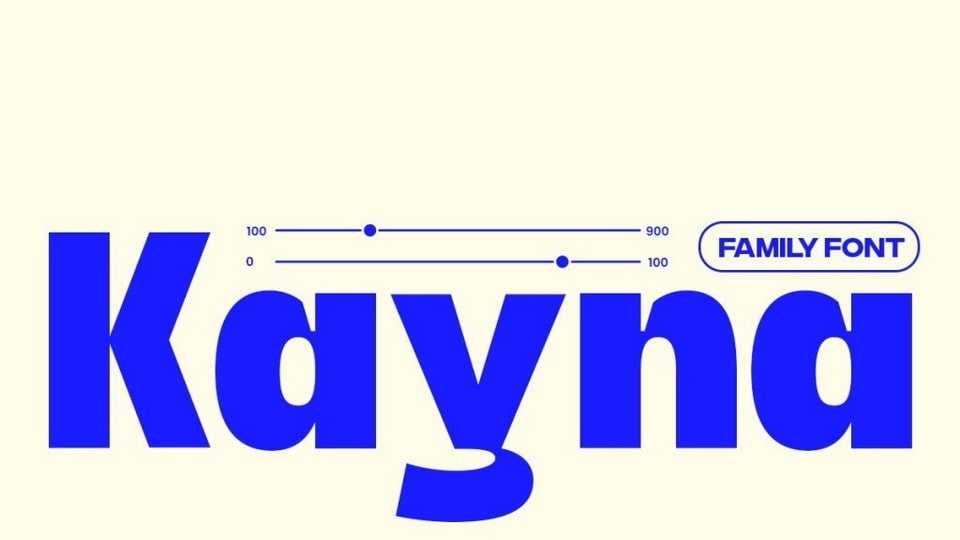
Download Kayna font, a sleek, stylish, and incredibly adaptable typeface. Whether you need a font for headlines, body text, or anything in between, Kayna delivers with its contemporary aesthetic and high readability.